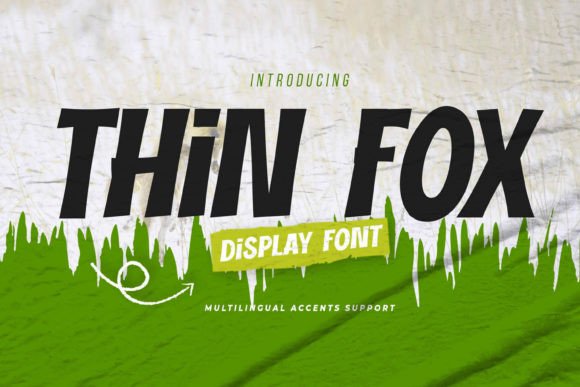
Introducing Thin Fox Font, a textured and natural display font with a clear style and dramatic movement, brought to you by Gassstype Studio. This font family is meticulously crafted to elevate your creative projects, whether it's designing captivating logos, printed quotes, alluring invitations, or personalized cards.
Thin Fox's charm lies in its ability to transform ordinary designs into masterpieces. Its flowing lines and organic textures add a touch of elegance and sophistication, leaving a lasting impression on your audience. Unleash your creativity and let Thin Fox take your designs to new heights.
With Thin Fox, you can effortlessly create product packaging that stands out on shelves, headers that command attention, and logotypes that exude professionalism. Elevate your letterheads with a touch of handwritten charm or design posters that captivate and inspire. Stationery takes on a new life with Thin Fox, adding a personal touch to your correspondence.
For special events, Thin Fox is the perfect choice to create enchanting wedding designs and invitations that set the tone for an unforgettable celebration. Its versatility extends to branding, where it can add a unique identity to your business or organization.
With Thin Fox, the possibilities are endless. Its natural, organic style adds a touch of warmth and authenticity to your designs, creating a connection with your audience on a deeper level. Let your creativity flow and experience the transformative power of Thin Fox.